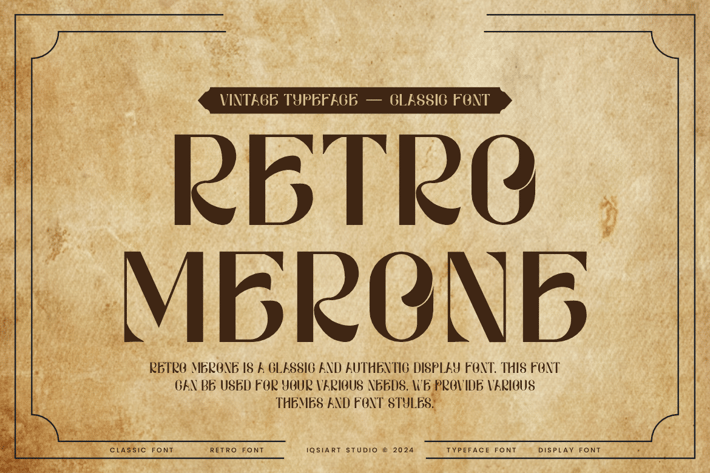
Retro Merone - Vintage & Western Font
Retro Merone Font is a best and authentic display font.
This font can be used for your various needs.
We provide various themes and font styles.